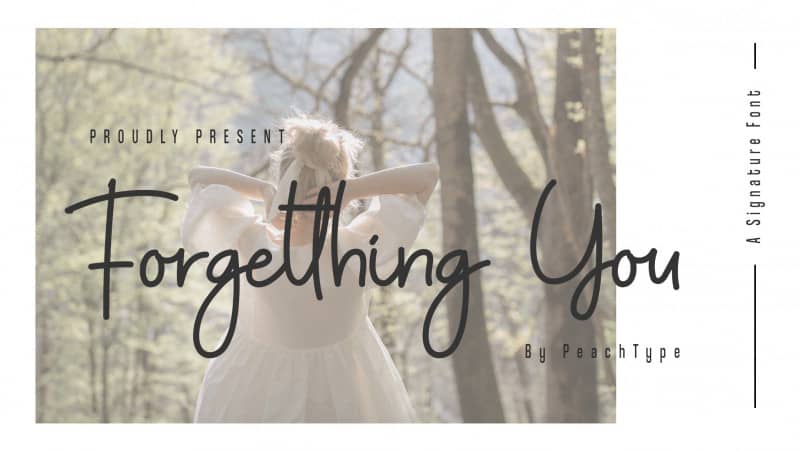
Forgetthing You Handwritten Font
Forgetthing You Handwritten Font is a stylish handwritten font with an amazing and natural style. Give your designs an authentic handcrafted feel. Proudly presents a forgettingng you handwritten font, this font is made to forget the memories of someone who loves each other but cannot be together and is forced to give up, this font is perfect for presenting your feelings in a quote because it has characteristics similar to handwriting and will give a different impression to each existing design, thank you